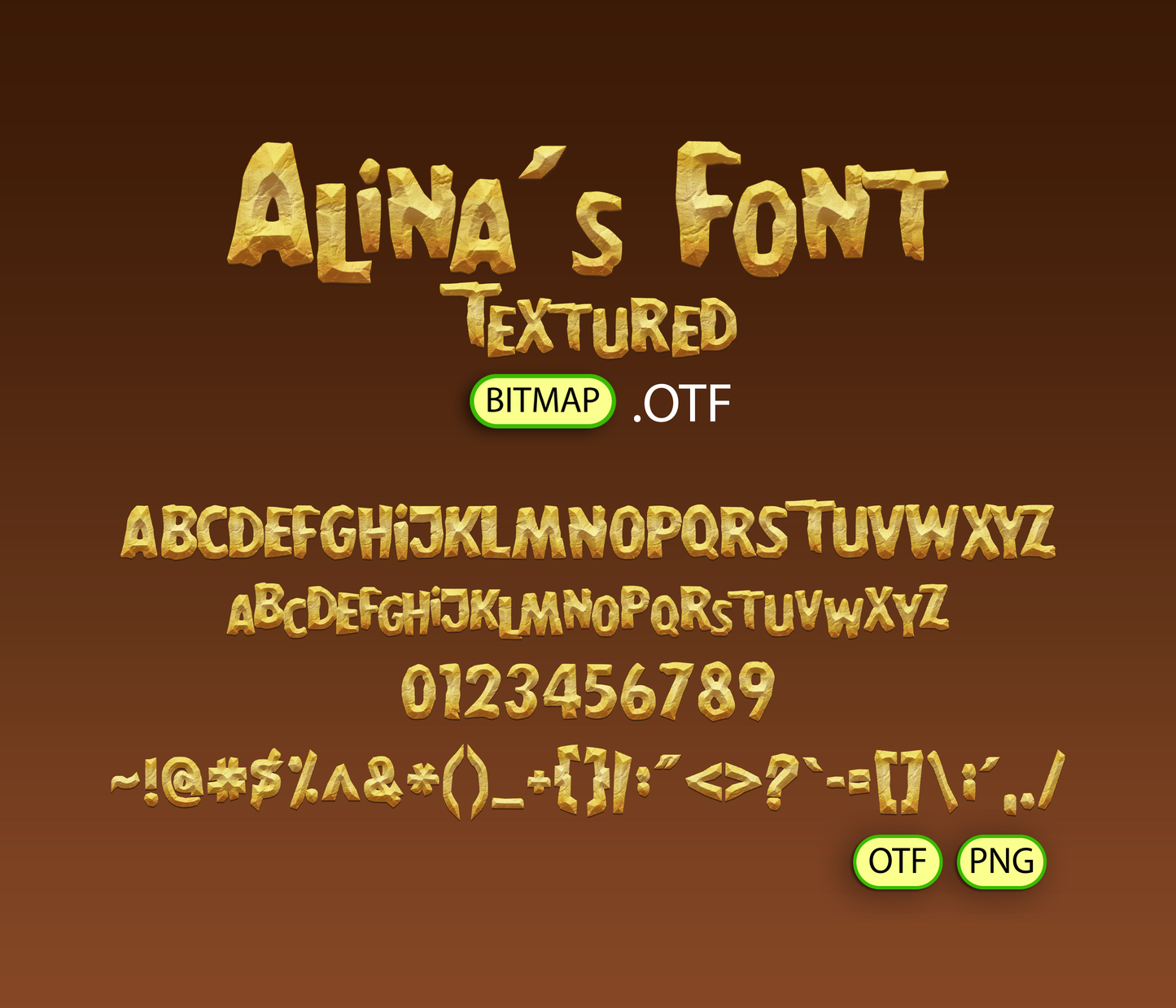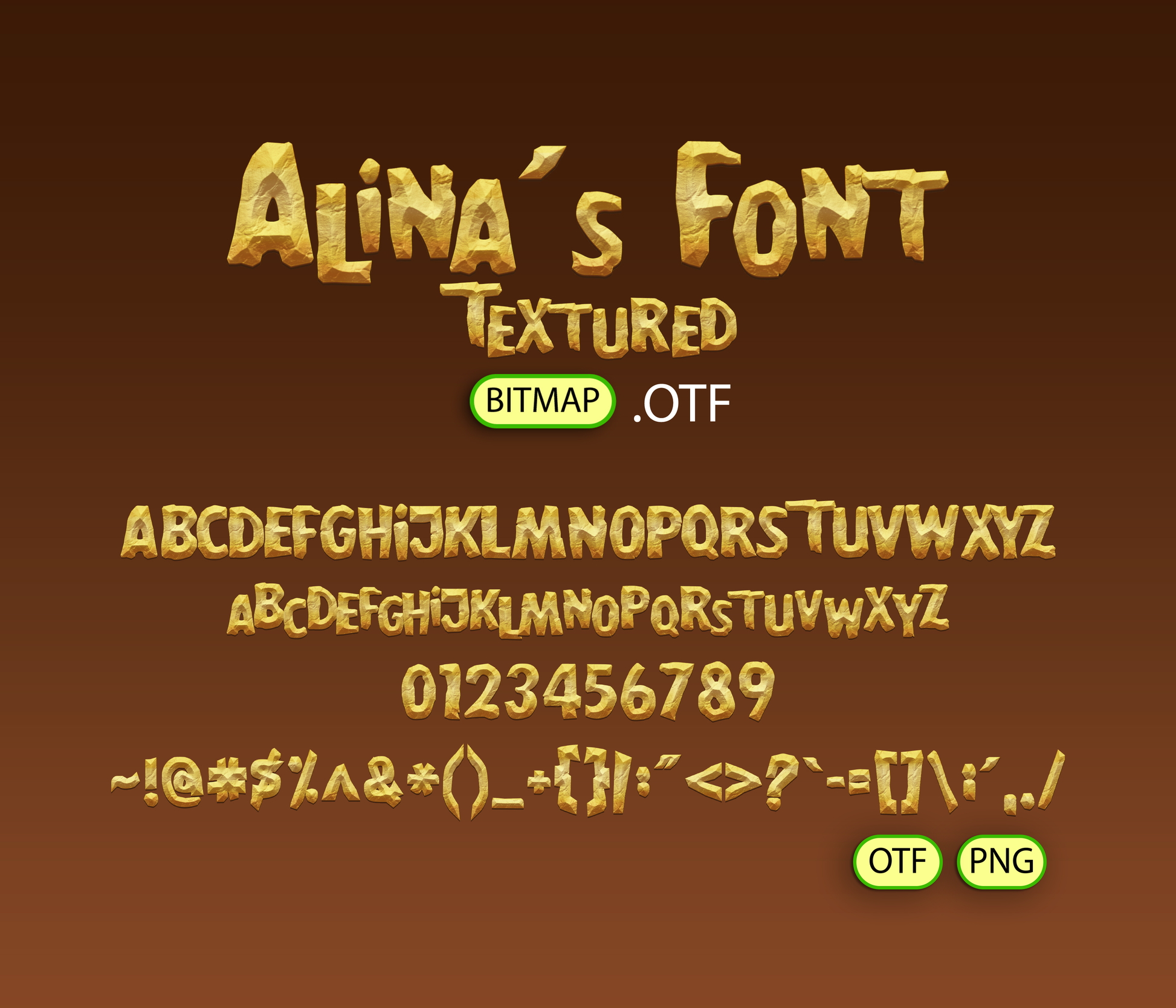
Stone Age Family Sitcom Font Textured
Stone Age Family Sitcom Font
Step into the prehistoric world of caveman comedy with our Stone Age Family Sitcom font! This playful typeface captures the essence of a beloved animated series that brings the distant past to life with its unique charm and humor. Each character in this font radiates the fun-loving nature of the modern stone age family and their rocky community of Bedrock.
What is the Stone Age Family Sitcom font?
Imagine a typeface that perfectly encapsulates the cartoon's Stone Age setting and its comic style. Our font features bold, rocky letterforms that are reminiscent of chiseled stone and primitive tools. It includes a full set of alphabets, numbers, and special characters, offering a comprehensive solution for various design projects that aim to evoke the nostalgia and timeless appeal of this classic animated series.
What You Can Do With Stone Age Family Sitcom Textured Font
This versatile font is ideal for a range of creative applications:
1. Retro TV Night Invitations: Create unique and playful invitations for cartoon marathon parties or vintage animation events.
2. Children's Merchandise Design: Perfect for designing apparel, toys, and accessories that capture the Stone Age family charm.
3. Digital Content and Social Media: Use the font to add a touch of prehistoric fun to websites, blogs, and social media posts.
4. Educational Materials: Incorporate the font into teaching resources for history or animation-themed lessons.
5. Greeting Cards and Stationery: Design personalized stationery or greeting cards with a Stone Age theme.
6. Promotional Materials: Use in advertising campaigns for family-friendly products or events.
7. Interior Decor: Create wall art, decals, or signage for children's rooms, play areas, or themed restaurants.
8. Event Signage: Develop eye-catching signs and banners for cartoon-themed events or conventions.
9. Book and Magazine Design: Use in publications focusing on animation, family entertainment, or retro pop culture.
10. Creative Art Projects: Ideal for crafting, scrapbooking, and artistic projects inspired by the Stone Age family.
• Textured and Non-Textured Variants: Each font is available in both a playful, Stone Age-inspired style and a clean, non-textured version for diverse design needs.
• Comprehensive Character Set: Offers a wide range of characters for complete design versatility.
The Stone Age Family Sitcom font is more than just a typeface; it's an homage to the classic cartoon that has delighted generations. Let your creativity travel back in time and bring a touch of prehistoric humor to your designs!